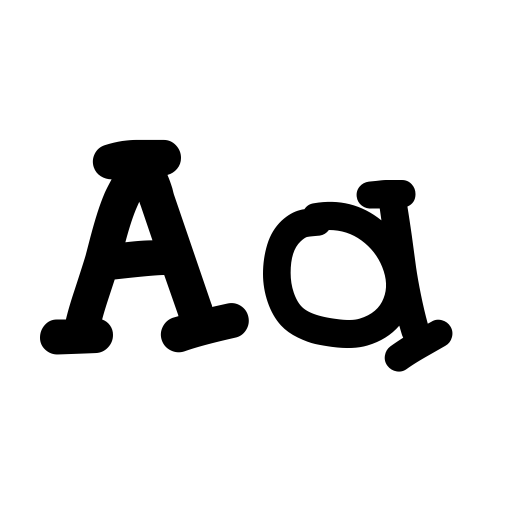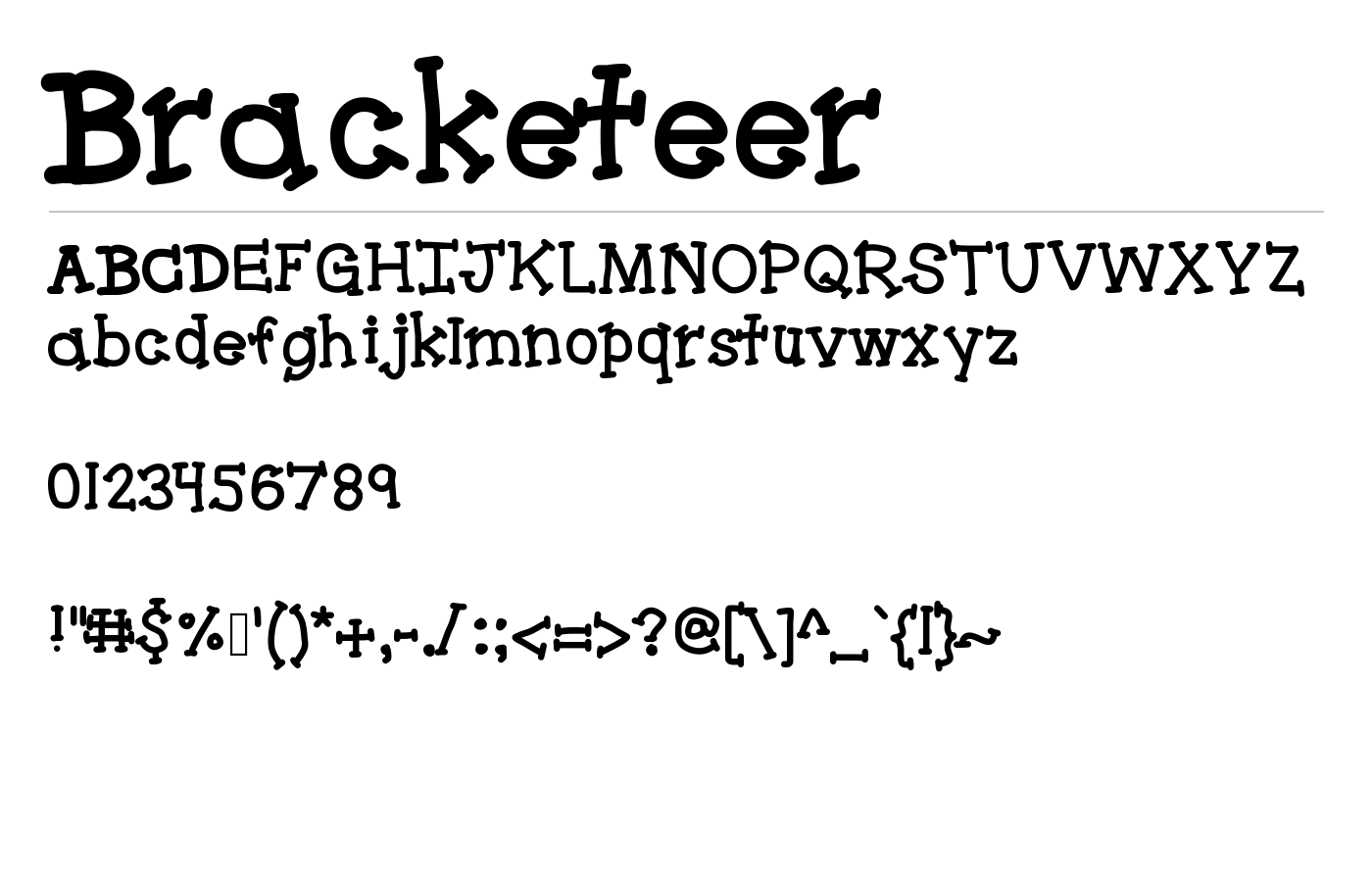
Bracketeer is a whimsical serif font with a playful and informal character, featuring rounded, slightly irregular strokes and quirky bracketed serifs that add a handcrafted feel. Its medium weight, consistent width, and moderate x-height make it approachable and easy to read, while unique letterforms like the single-story 'a' and charmingly twisted serifs give it distinct personality. Ideal for creative projects, children's books, casual branding, and fun editorial designs, Bracketeer brings a friendly, lighthearted touch wherever it’s used.
Bracketeer Font
About Bracketeer Font